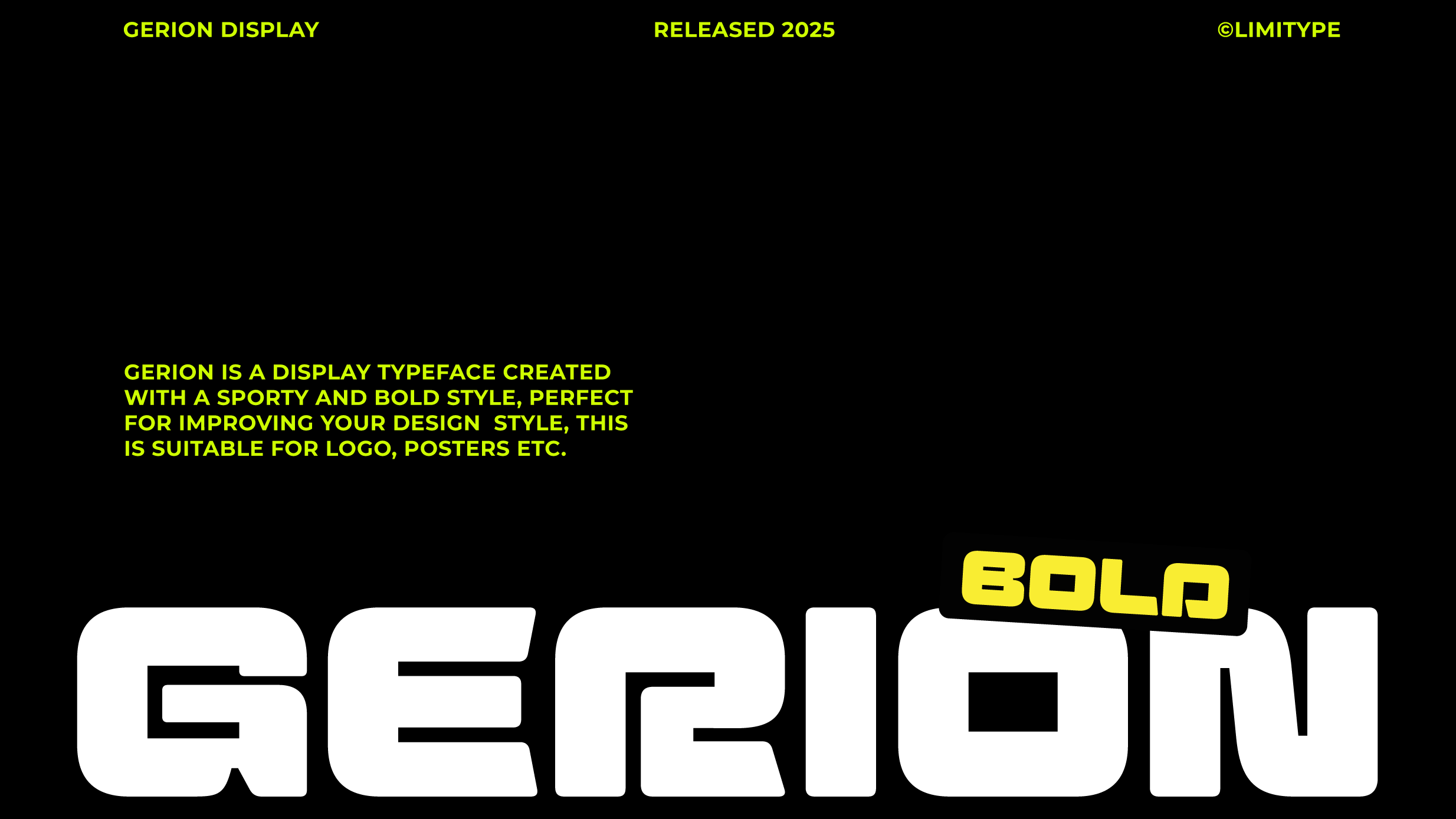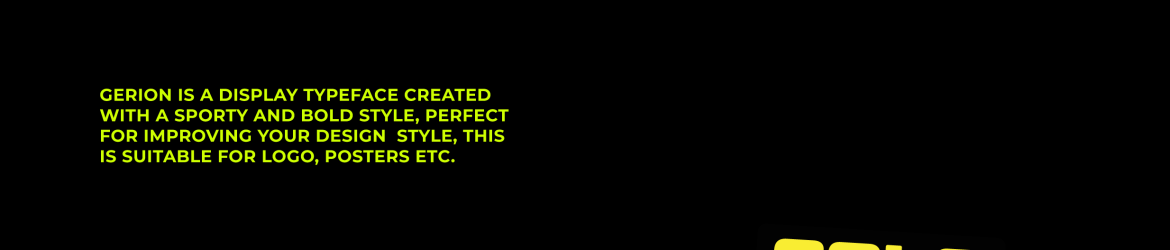
Download Gerion font, a bold modern typeface with a dynamic, futuristic edge. Rounded letterforms give it a strong, confident, and progressive character.